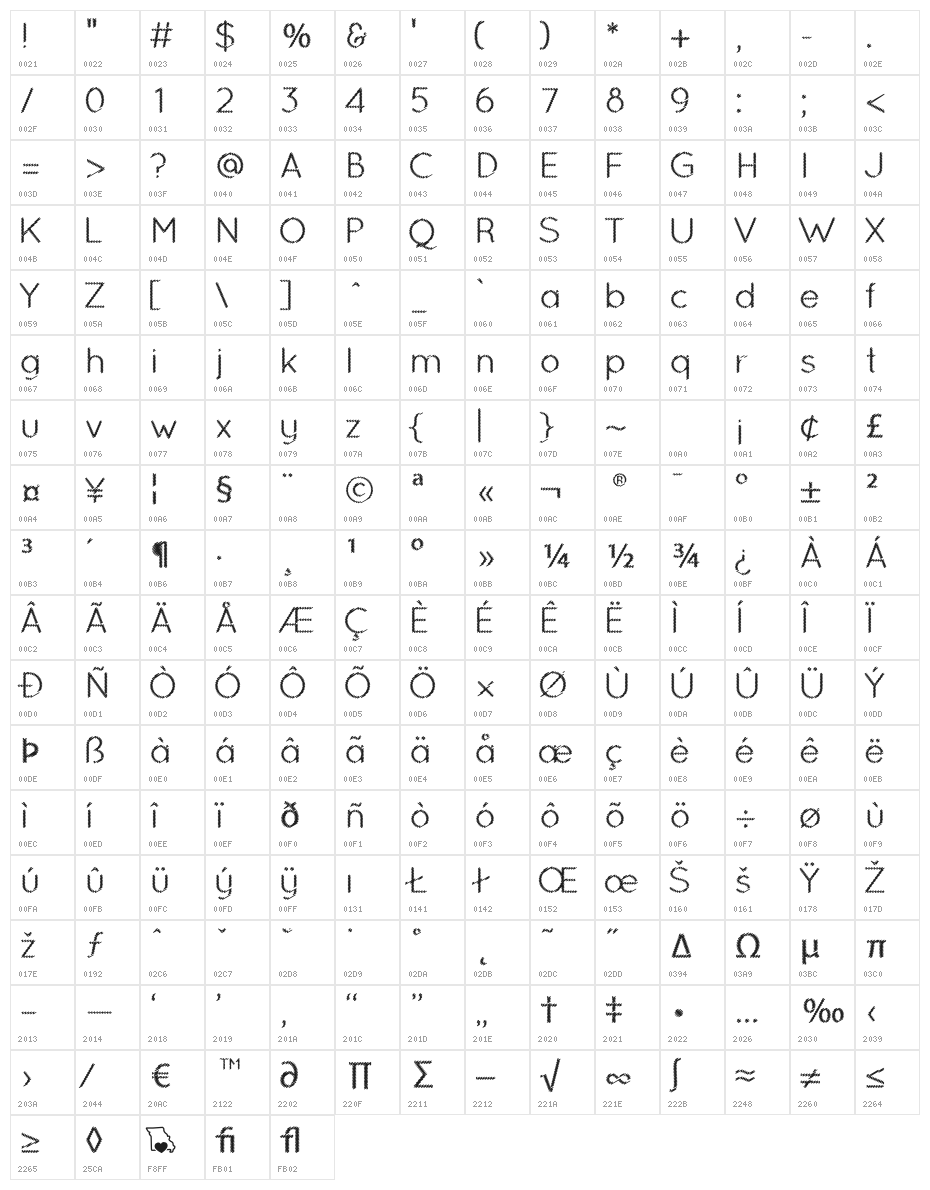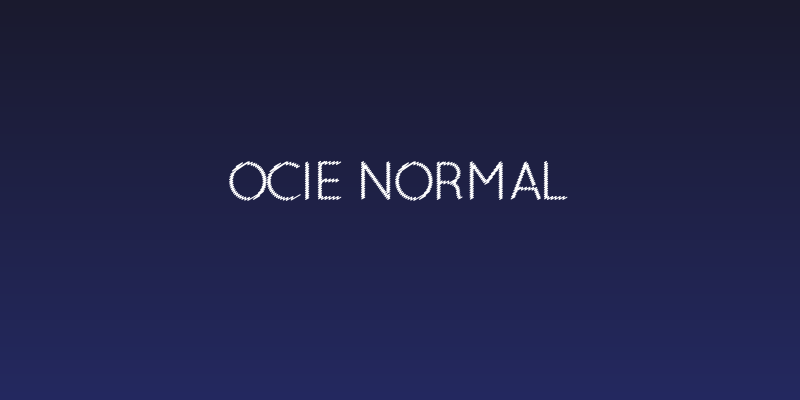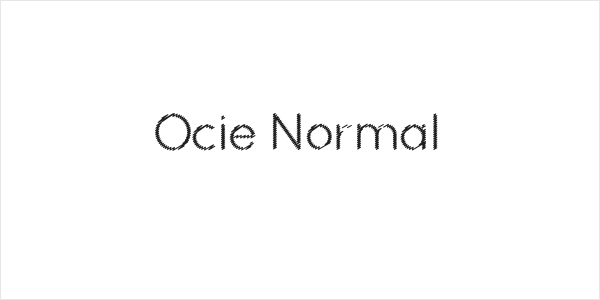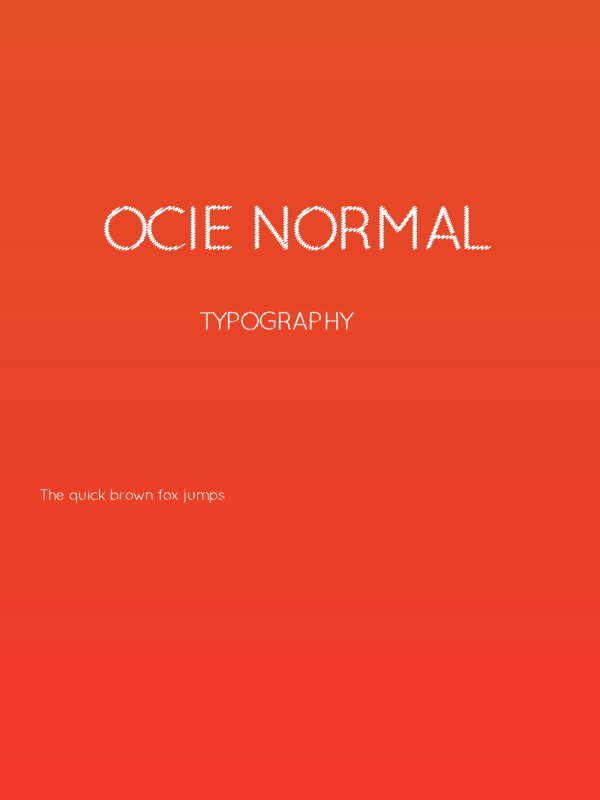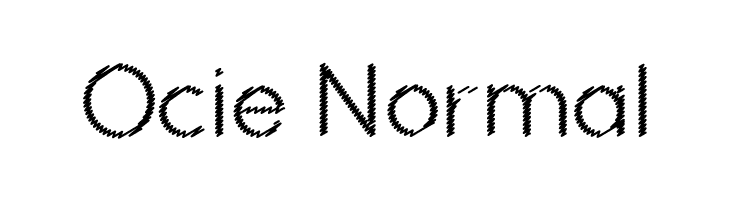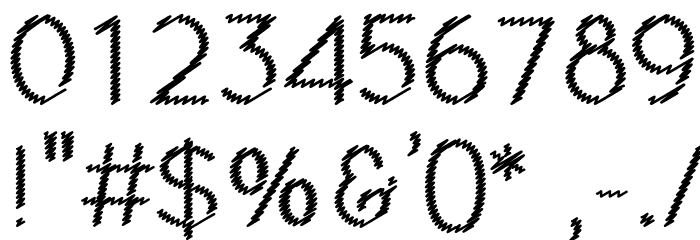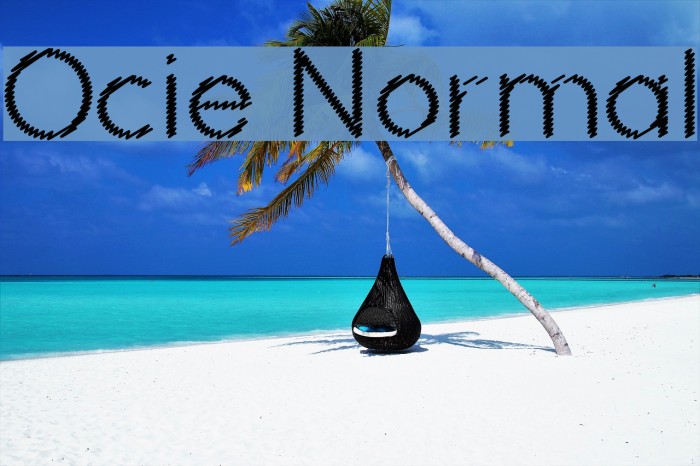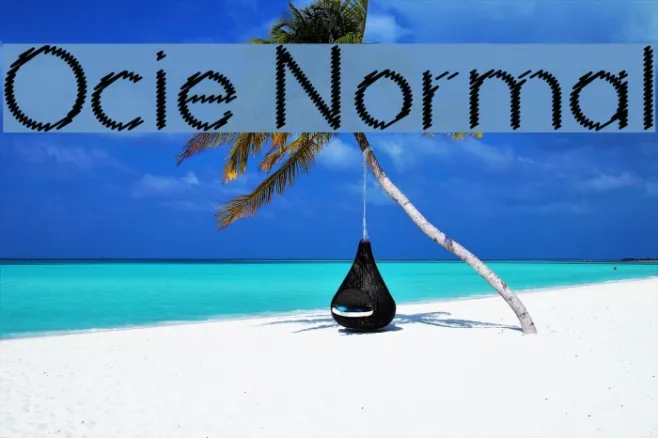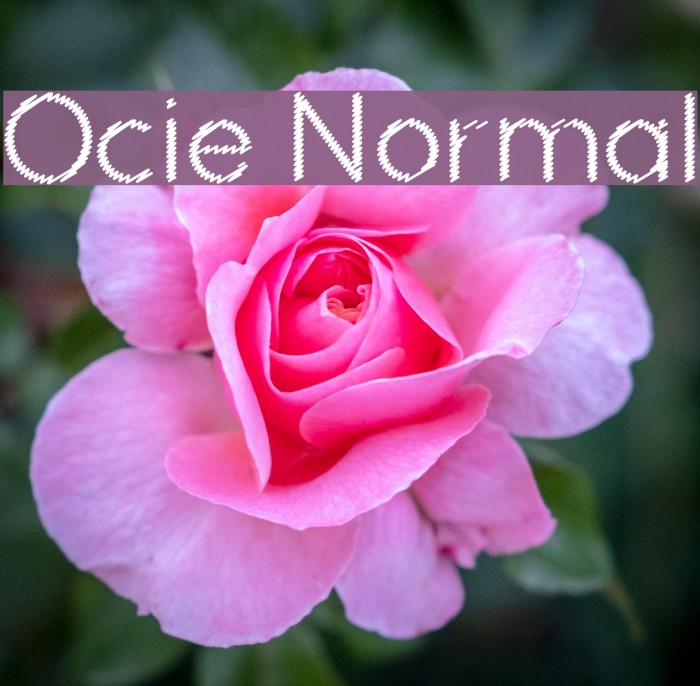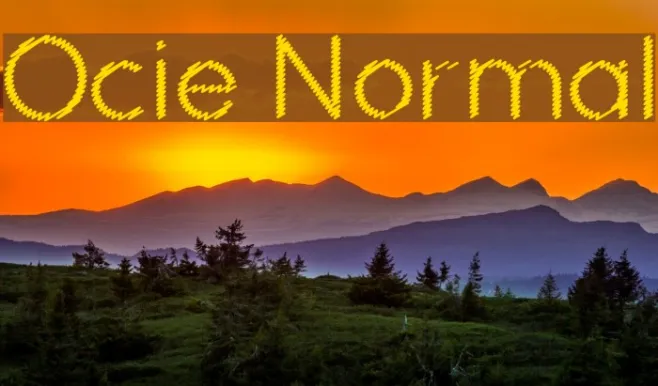
Ocie Normal Font
Ocie Normal Description
This font features a unique, textured design that gives each character a dynamic, zigzag appearance. The letters are crafted with a consistent pattern that adds a sense of movement and energy. The uppercase and lowercase letters maintain a uniform style, ensuring readability while still offering a distinctive look. Numbers and special characters follow the same design principles, making them cohesive with the alphabet. The font's playful yet structured aesthetic makes it suitable for creative projects that require a bold statement.
| Proposed Projects | Ideal for branding, posters, and creative digital designs where a bold and unique typeface is desired. |